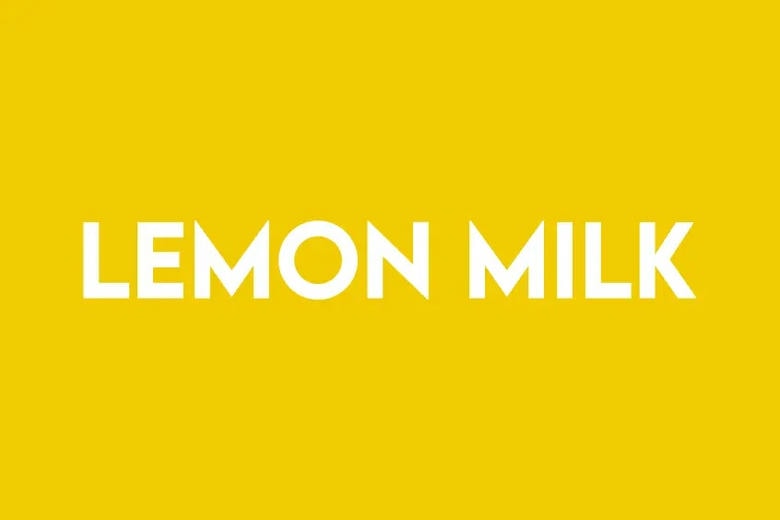
Lemon Milk Font Family
Lemon Milk Font
Lemon Milk is a modern sans serif font that is sure to stand out! The unique sharp sans mixed with thin strokes give off a bold mid century architectural vibe. Introducing Lemon Milk Font. After a long journey, the widely known LemonMilk has now became pro fonts. It finally has lowercases, covering extended Latin, Cyrillic, and Greek.
Moreover, developed from the original version in 2014, it is now future proof: more opentype features + variable fonts. With such styles, this famous geometric typeface with sharp edges is perfect for every display!
Lemon Milk Sans Serif Font Family